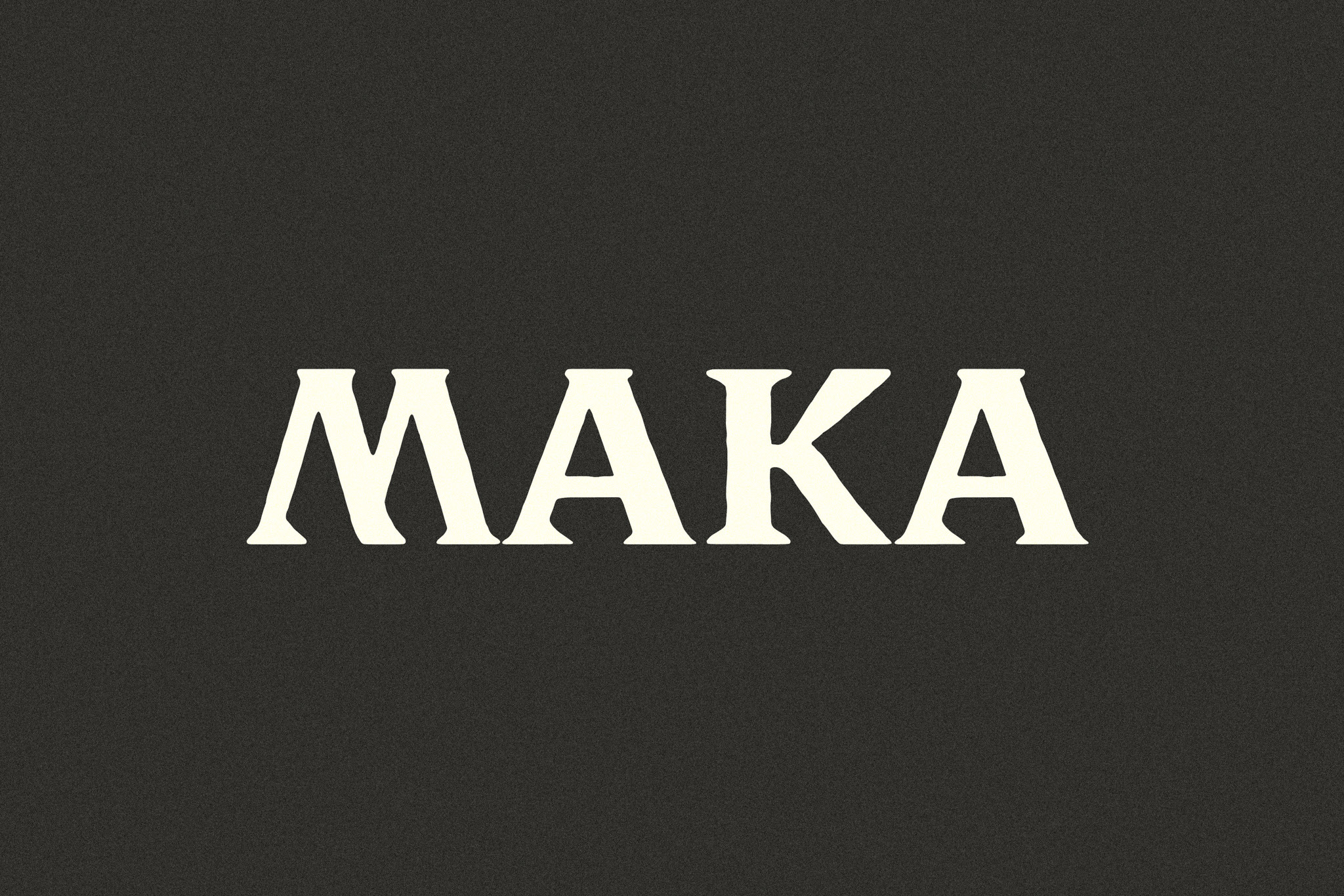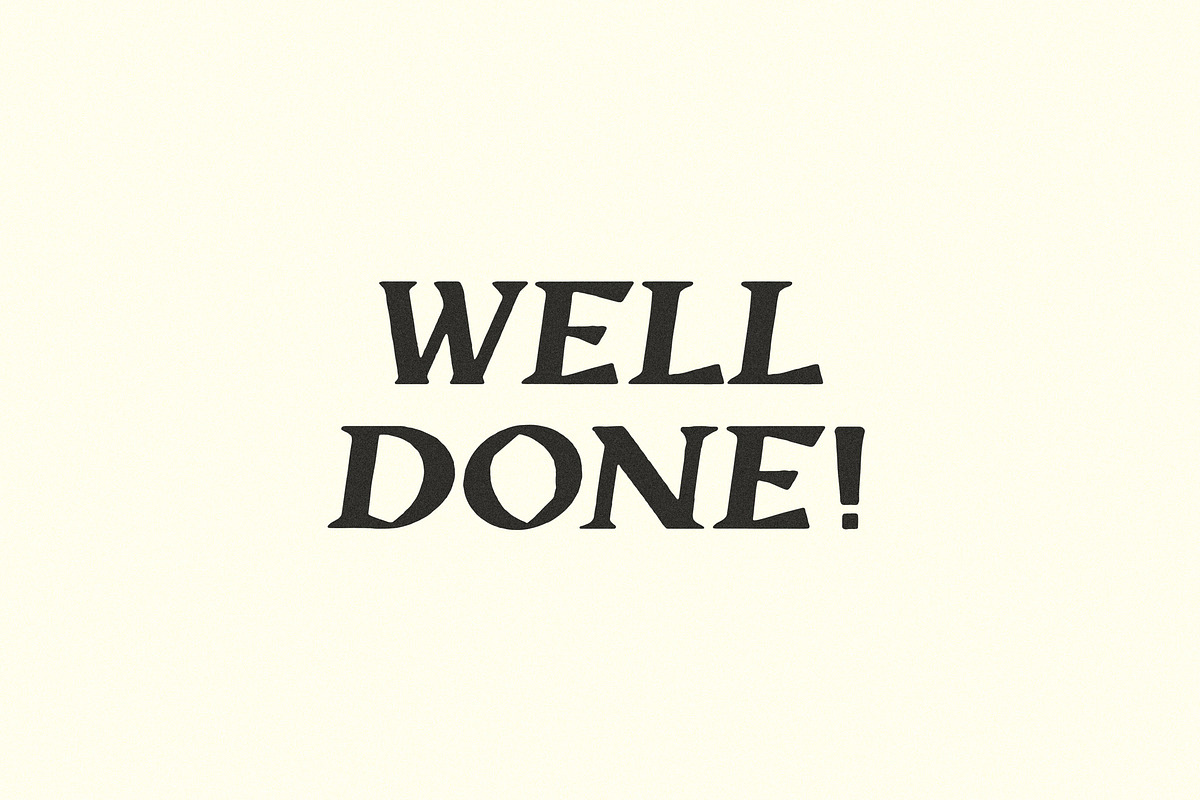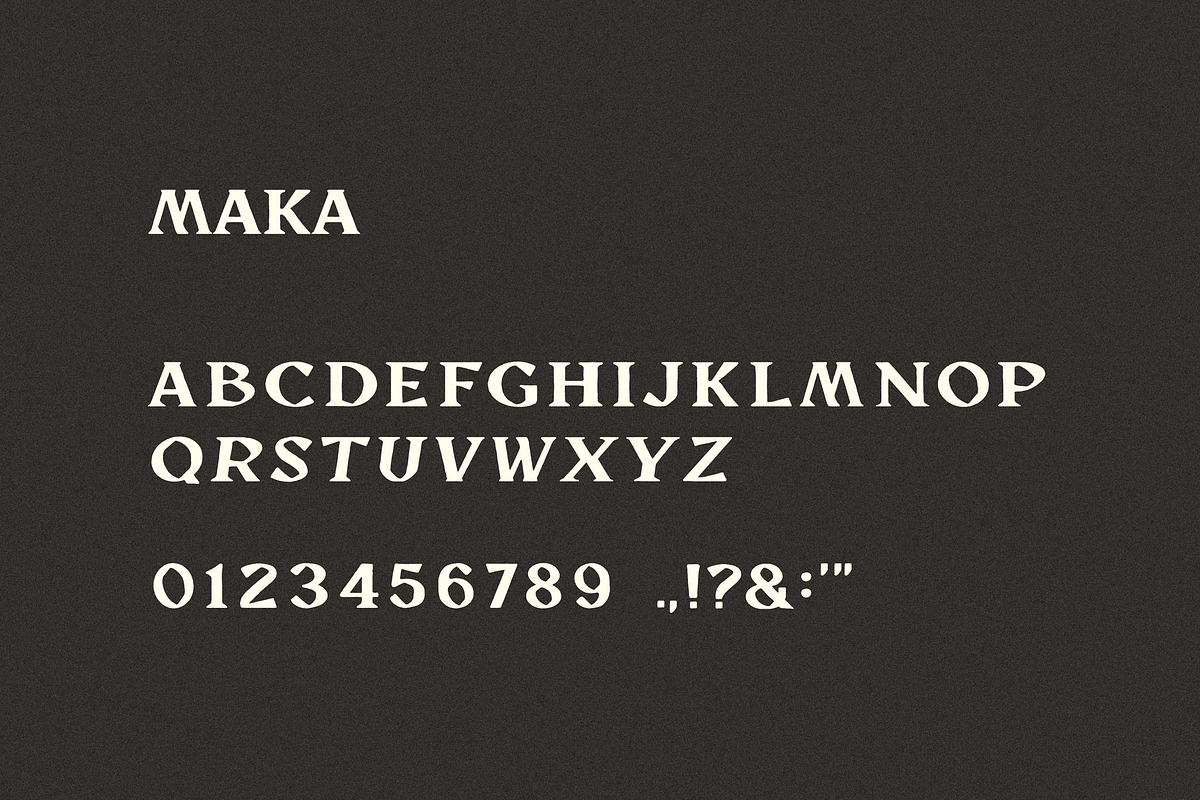
Maka | A Sharp Serif Typeface
Introducing a cut serif font that’s built ford tough. Maka is hand drawn, sturdy, and includes a sheered alternative found in the uppercase sent.